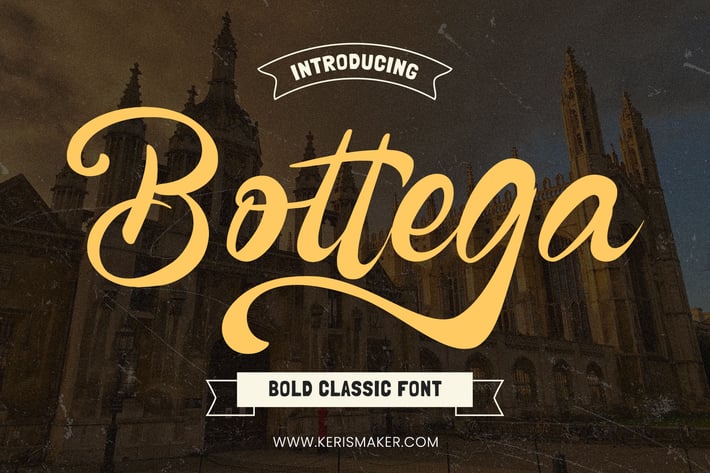
Bottega Font
Bottega is a script bold classic font with a relaxed theme, featuring a lovely style. This font was created to look as close to a natural handwritten script as possible. It is good for logo design, Social media, Movie Titles, Books Titles, short text even long text letters, and good for your secondary text font with sans or serif.
Standard Uppercase & Lowercase
Multilingual : ä ö ü Ä Ö Ü ß ¿ ¡
Alternate & Ligature